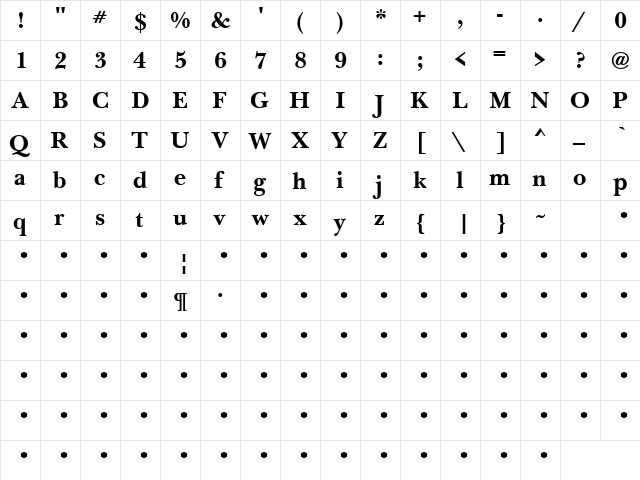
Clockwise. 1 Bold
Clockwise. 1 is a composed and adaptable typeface that performs quietly and consistently across a wide range of design contexts. The heavy weight commands attention and anchors typographic hierarchies.